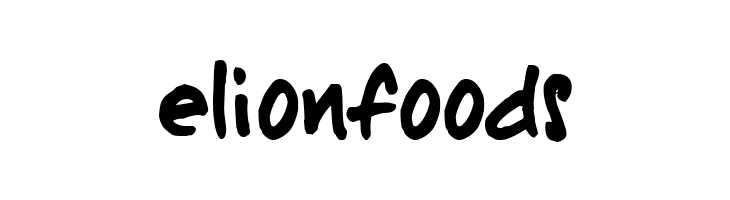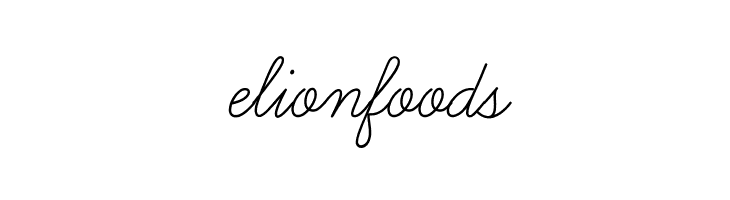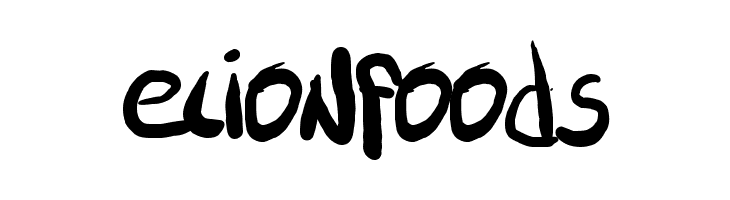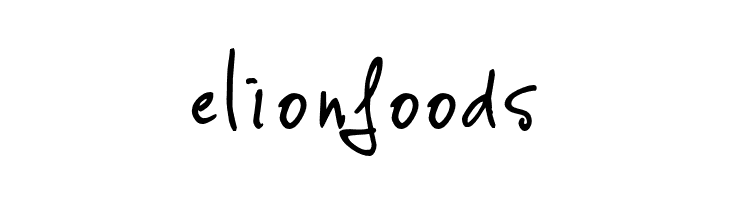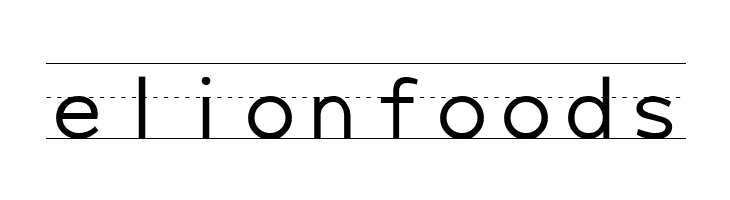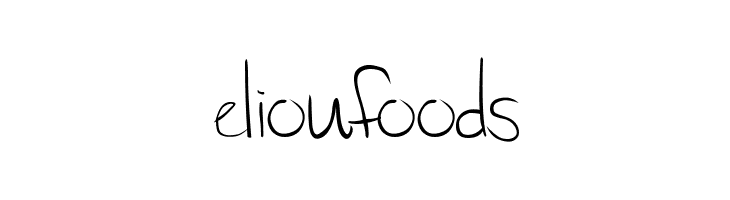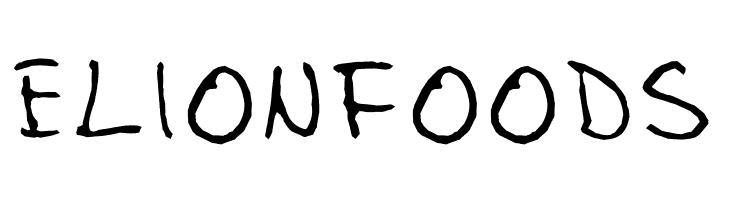
A graceful script font with fluid, connected strokes and elegant curves.
A lively handwritten font with fluid, natural strokes and a playful aesthetic.
A playful, hand-drawn font with a whimsical and quirky style.
A playful, handwritten font with flowing, cursive-like strokes.